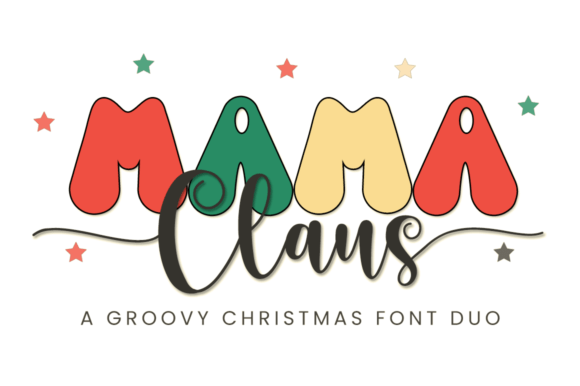
Looking for the best fonts for Cricut Vinyl that will instantly elevate your designs? Look no further than Mama Claus Duo Font, created by AM Designs. This font family, consisting of a delightful script and a charming display, is exactly what you need to add a touch of fun and cuteness to your projects.
Mama Claus is more than just a font; it's a burst of cheerfulness and brightness that will bring immense joy to every design you create. With its playful and lively strokes, this font duo embodies the spirit of happiness and spreads it effortlessly throughout your artwork.
The script font of Mama Claus Duo is perfect for adding a personal and handwritten feel to your creations. Whether you're designing greeting cards, invitations, or even custom t-shirts, this font will infuse your text with a warm and heartfelt vibe. It's like having your own personal calligrapher at your fingertips!
On the other hand, the display font in this duo offers a unique and eye-catching style. With its bold and distinct letterforms, it demands attention and adds a touch of whimsy to any design. From headlines to logos, this font will ensure that your message stands out from the crowd.
Imagine the smiles and compliments you'll receive when your friends and customers see the delightful Mama Claus Duo Font in your projects. It's the secret ingredient that will make your designs truly memorable and captivating.